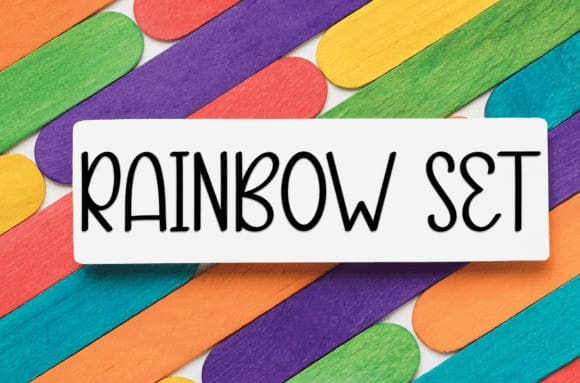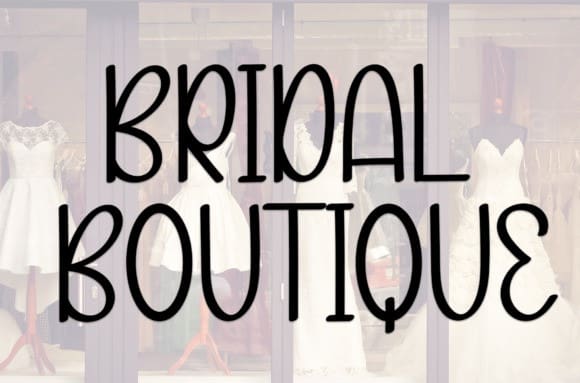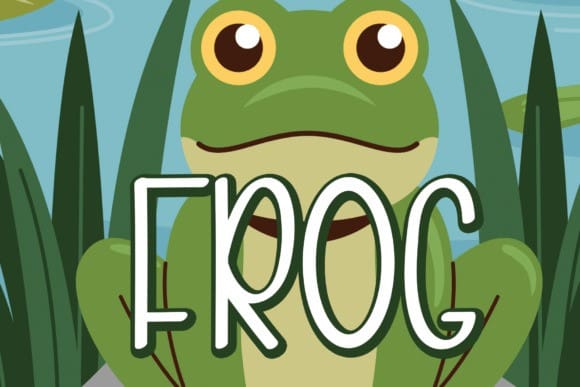
Frog Cute Font
Frog Cute Font is a sweet and friendly handwritten font. Fun and relaxed, this font is ideal for writing wedding invitations, cards, or any other design that might need a lovely touch!